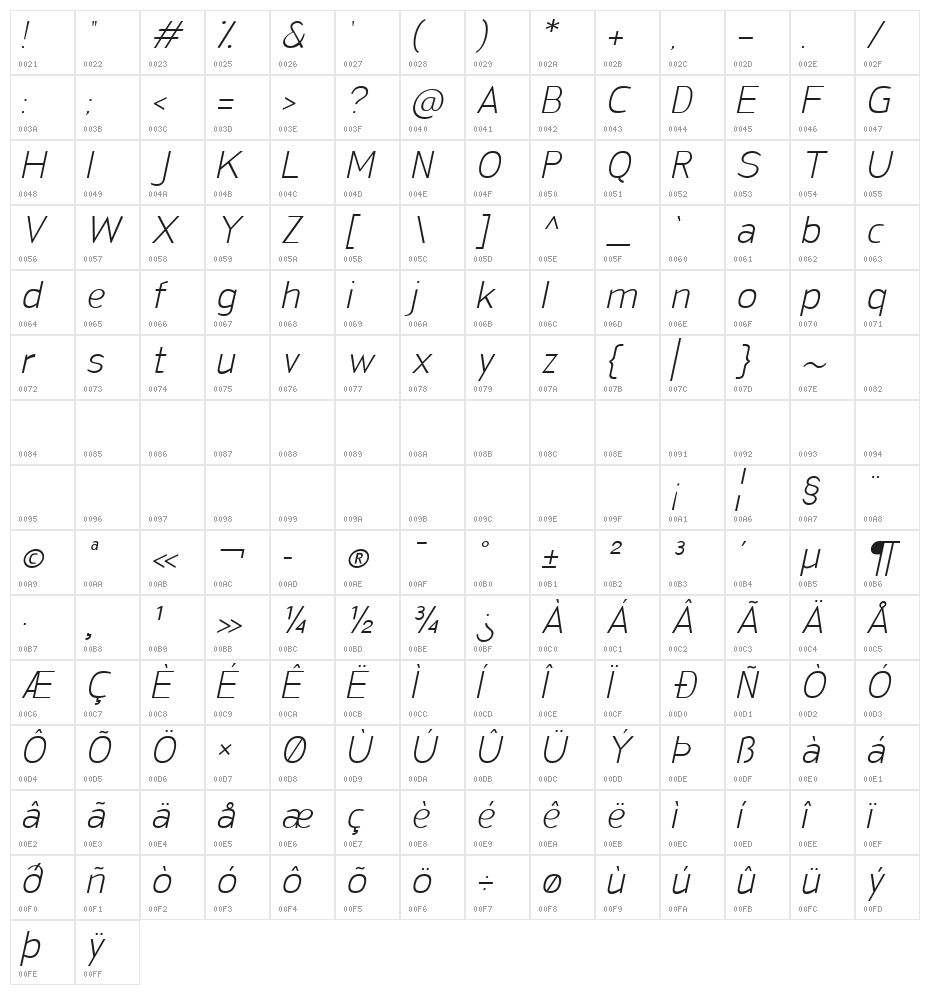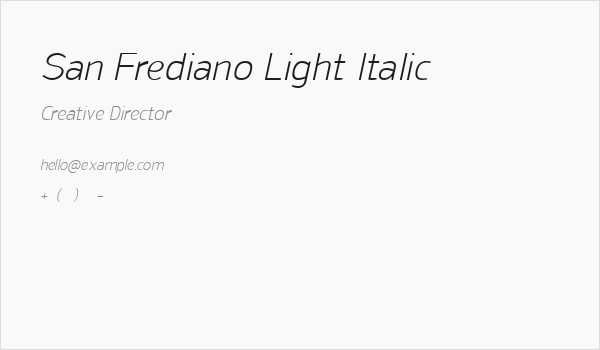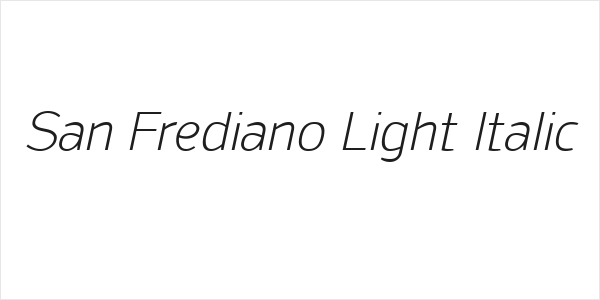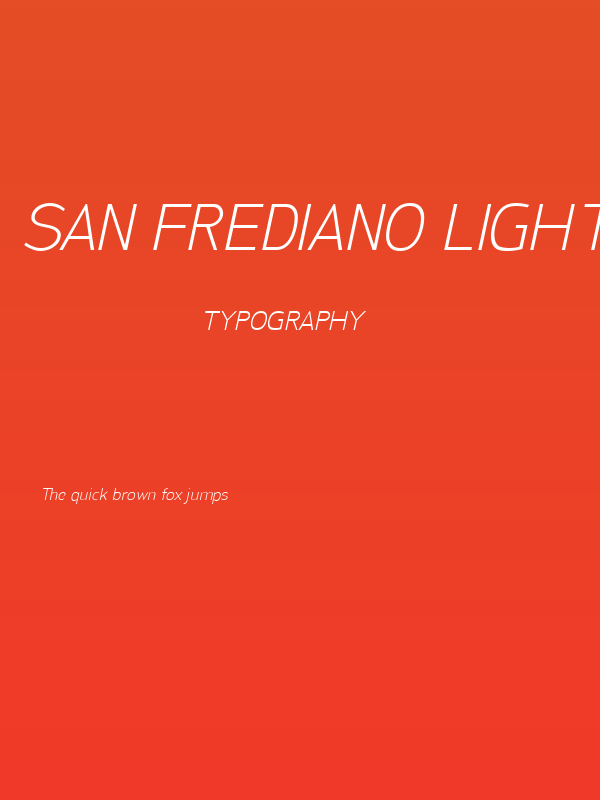
San Frediano Light Italic Font
San Frediano Light Italic Description
This font features a sleek and modern design with a light weight and italic style. The characters are elegantly crafted with smooth curves and a slight slant, giving it a dynamic and sophisticated appearance. The uppercase and lowercase letters maintain a consistent style, with a clean and minimalistic approach. The numerals and special characters are well-integrated, matching the overall aesthetic of the font. Its light weight and italic nature make it suitable for projects that require a touch of elegance and modernity.
| Proposed Projects | Ideal for fashion magazines, elegant branding, modern websites, and stylish invitations. |